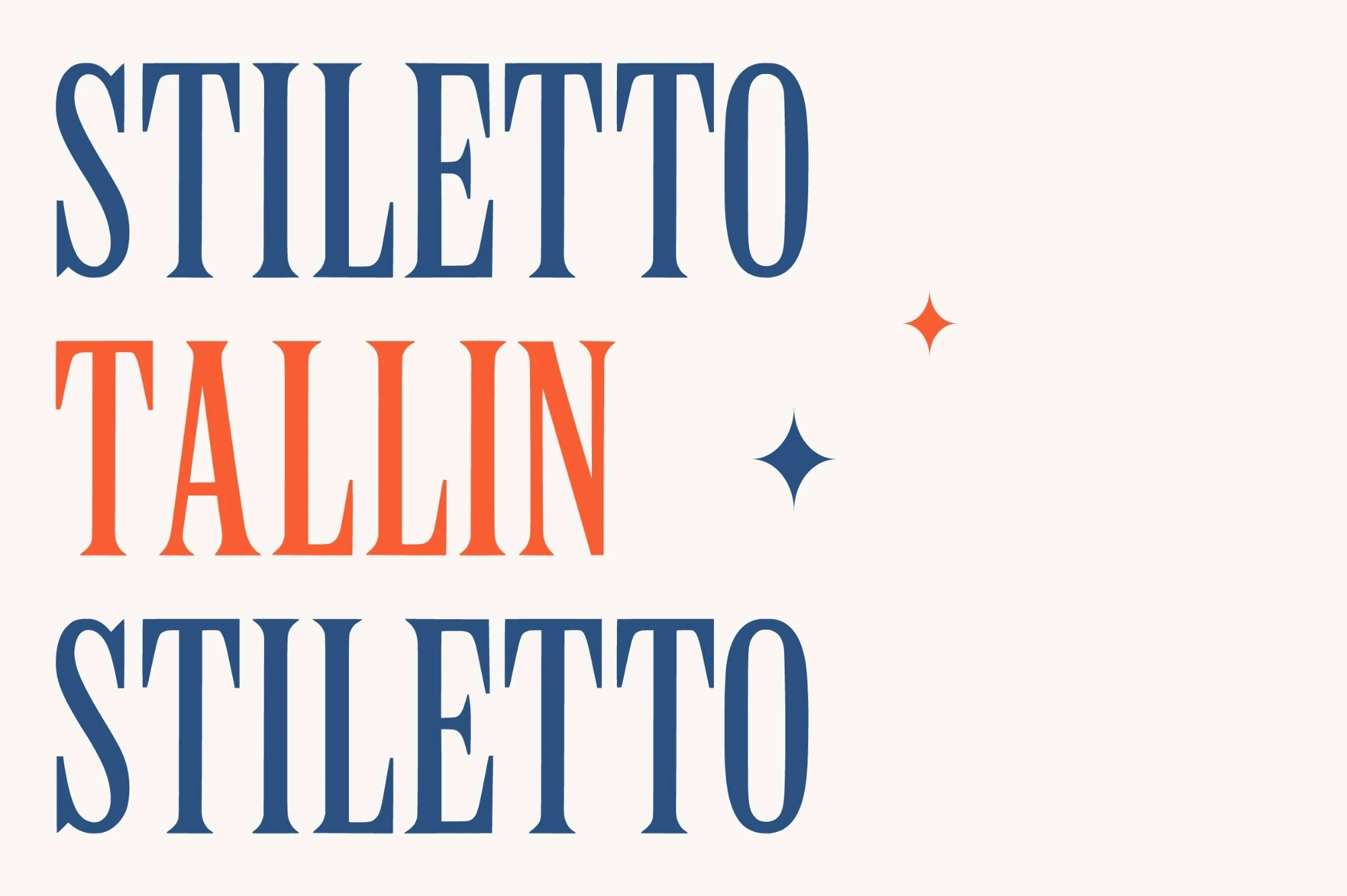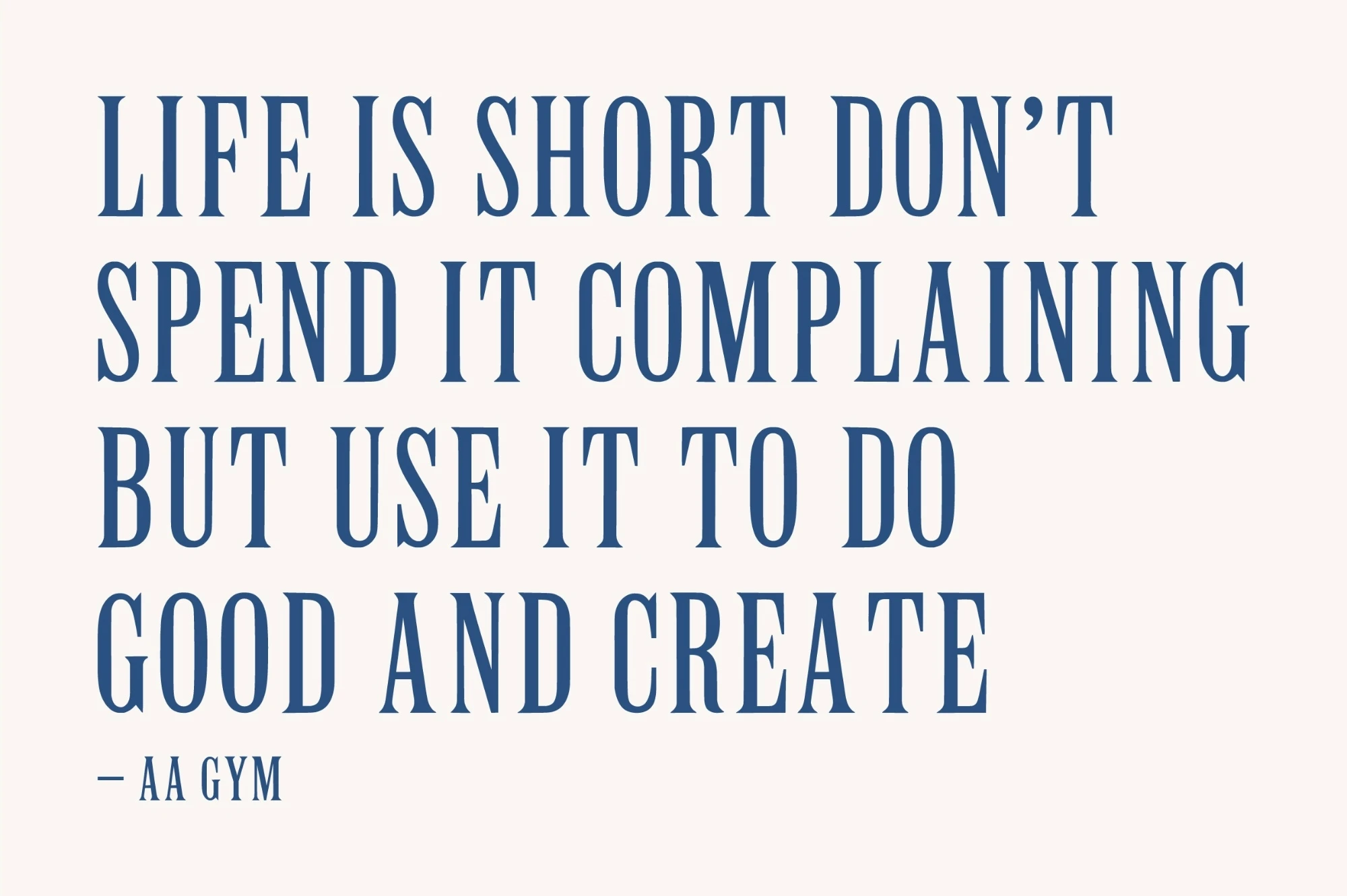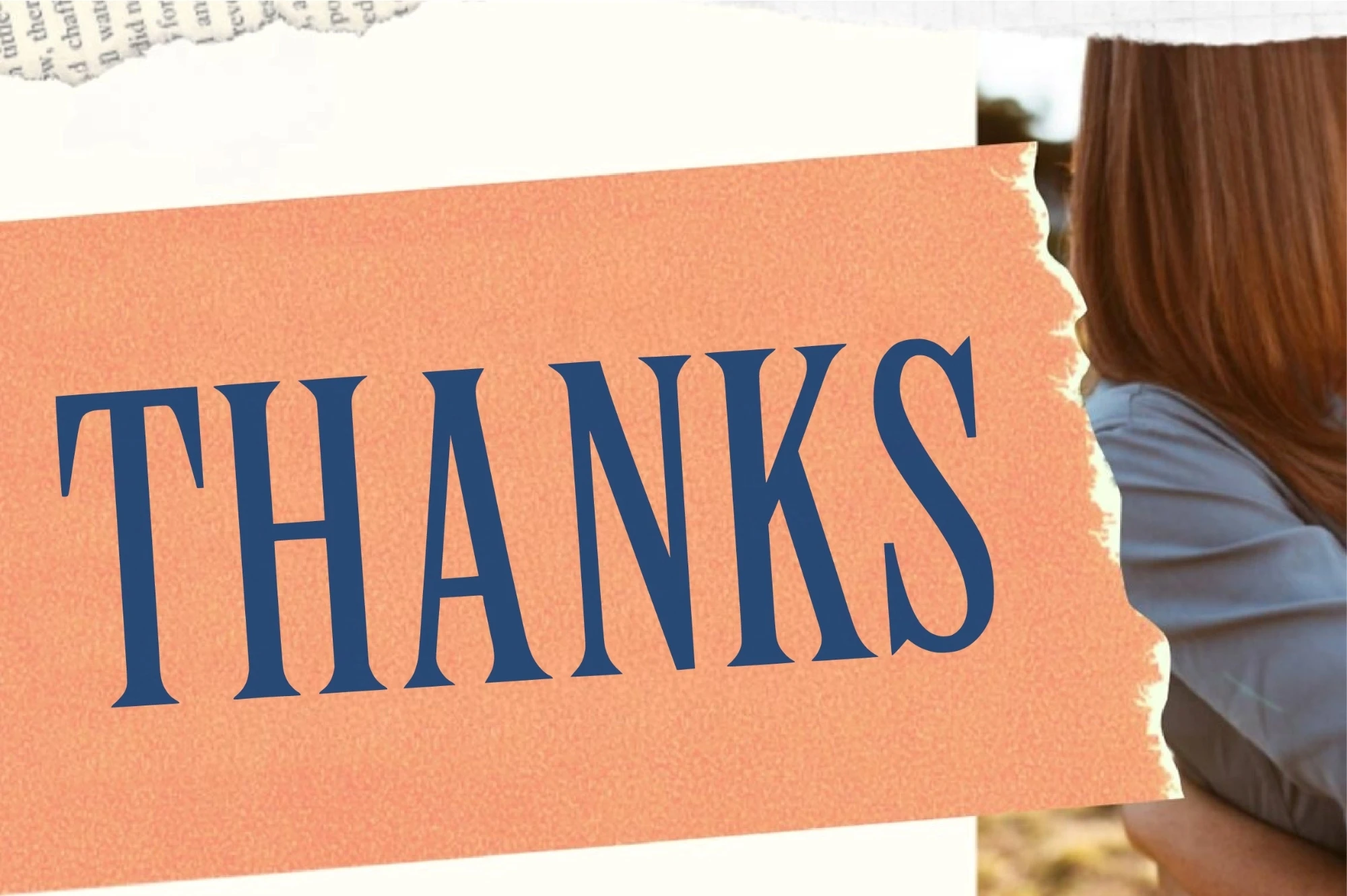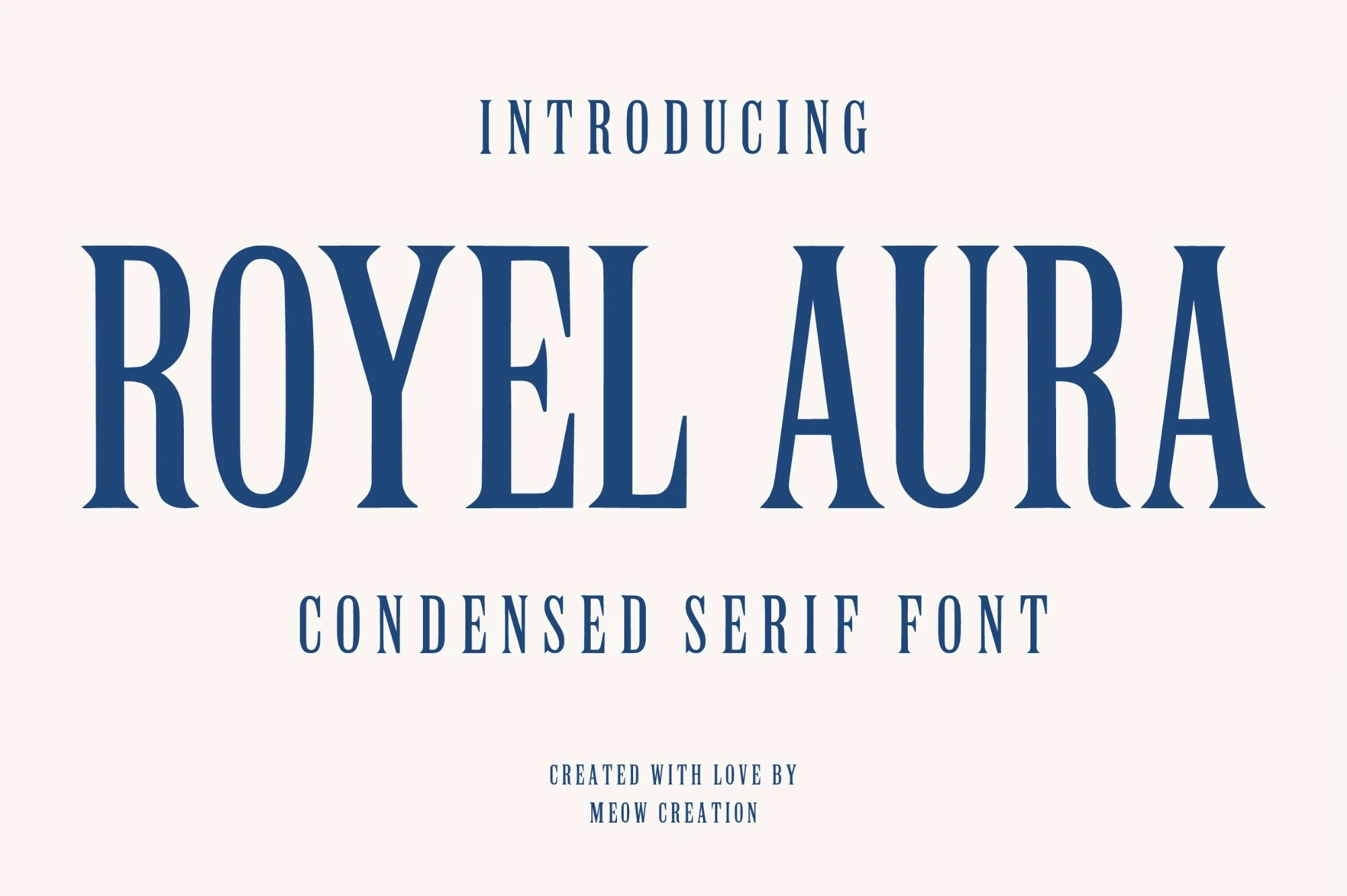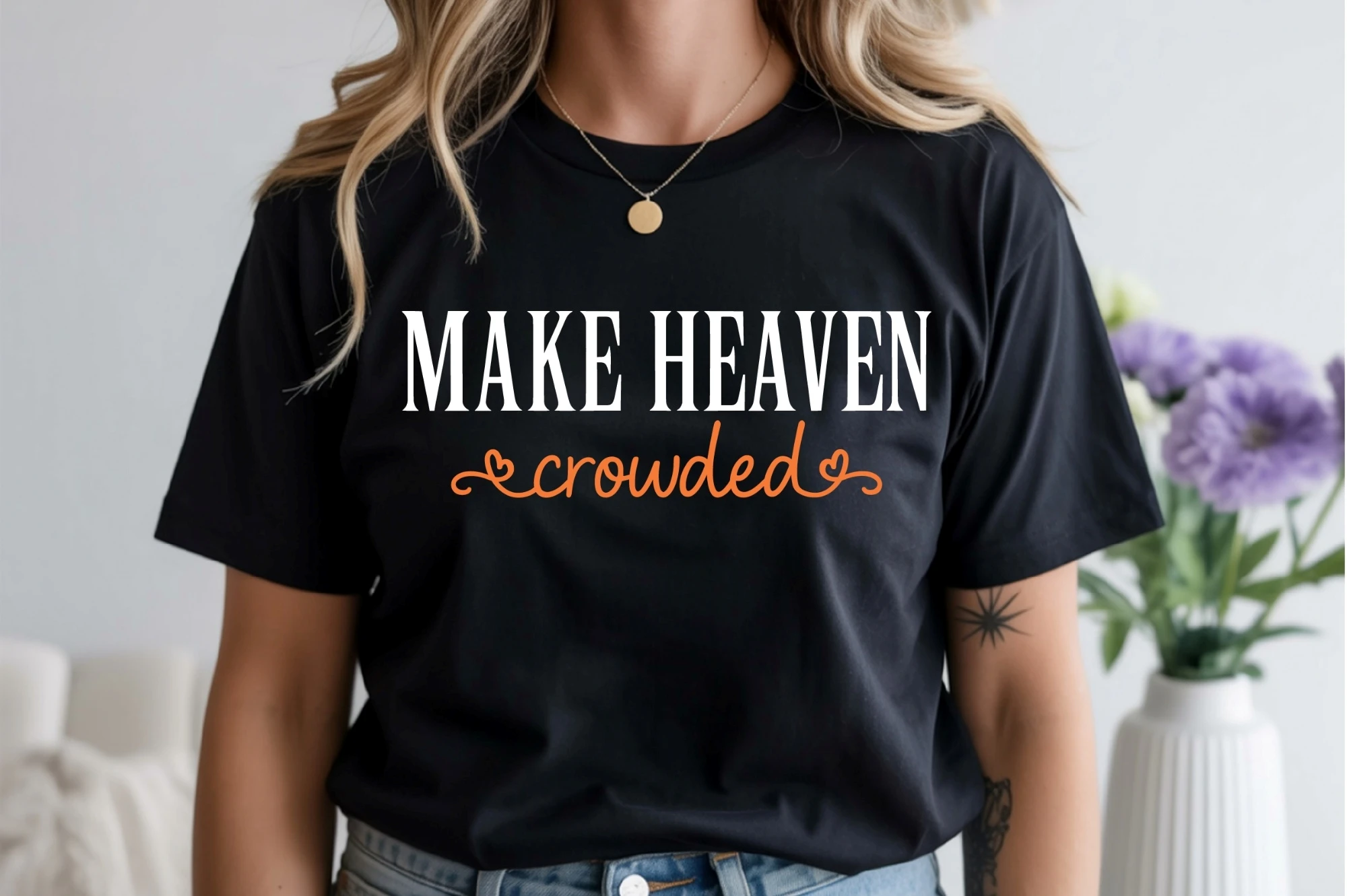
Royel Aura is a refined tall serif typeface that blends classic aesthetics with a modern premium look. Its graceful vertical structure and well-balanced letterforms create a luxurious visual presence, making headlines and titles stand out with style.
Ideal for branding, apparel, magazine layouts, invitations, packaging designs, posters, and high-end typography projects, Royel Aura delivers clarity, elegance, and a polished design experience. Its sharp serifs and disciplined proportions give every word a sophisticated and timeless feel.